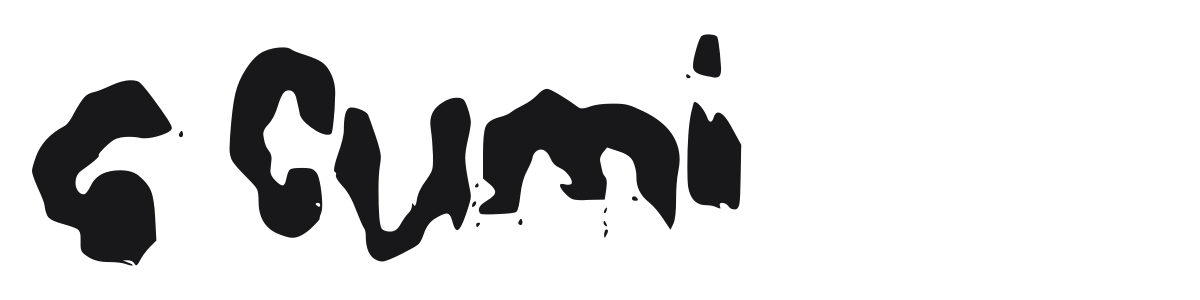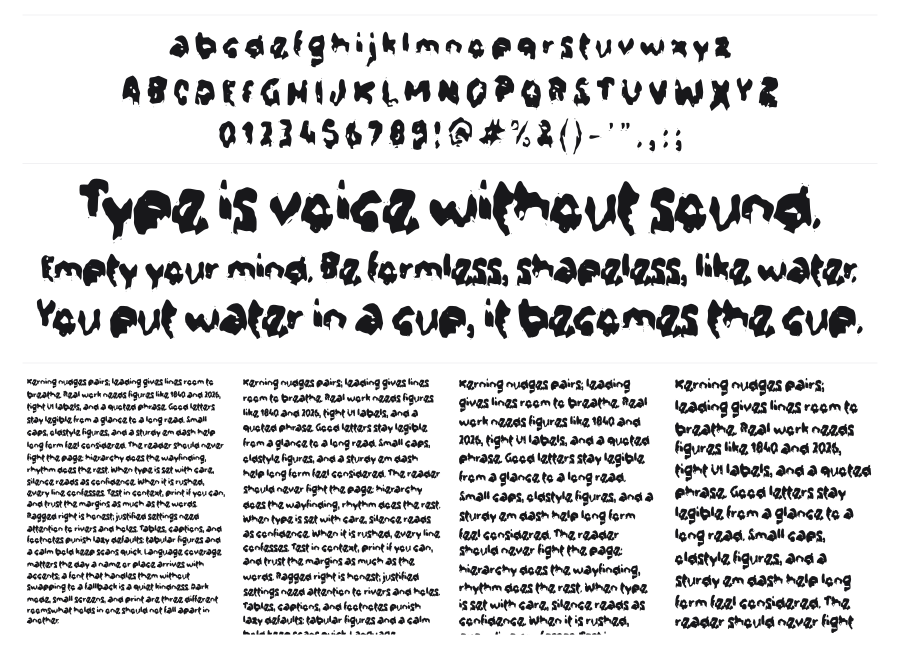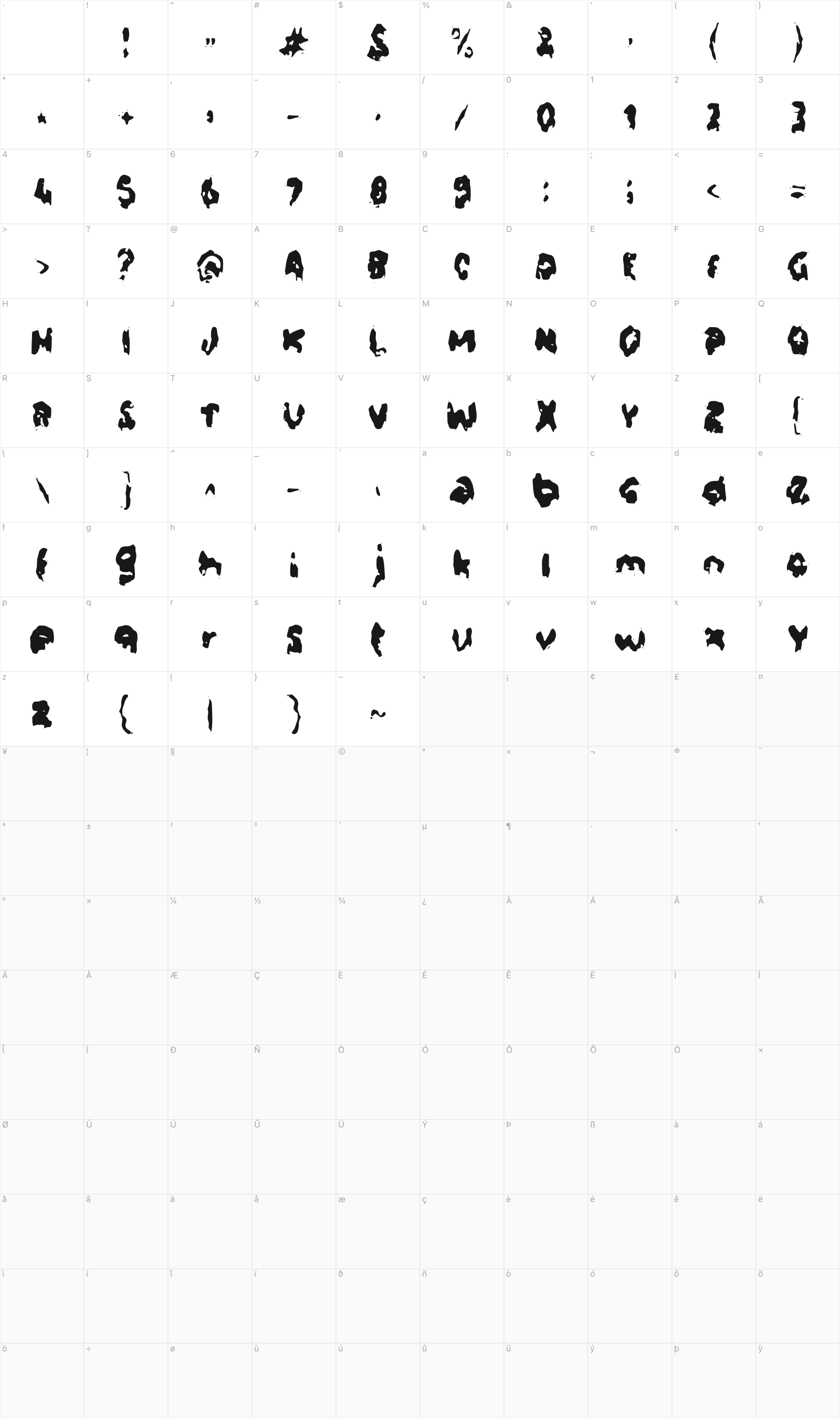
c Cumi
c Cumi is a heavy distressed display font where every character looks like it has been stamped, degraded, and eaten away. The thick, rounded forms bleed and melt into irregular blobs with ink-spread artifacts and rough torn edges throughout. It carries a raw underground energy suited to punk, horror, or experimental design work.